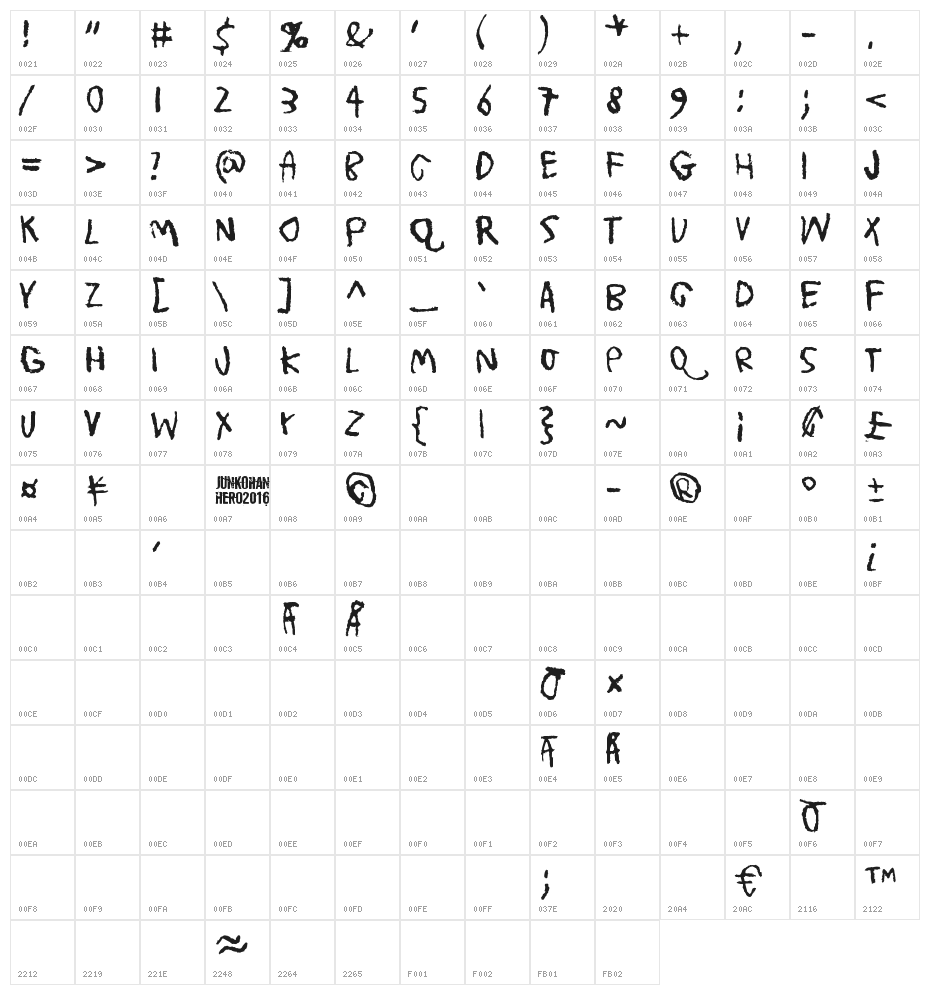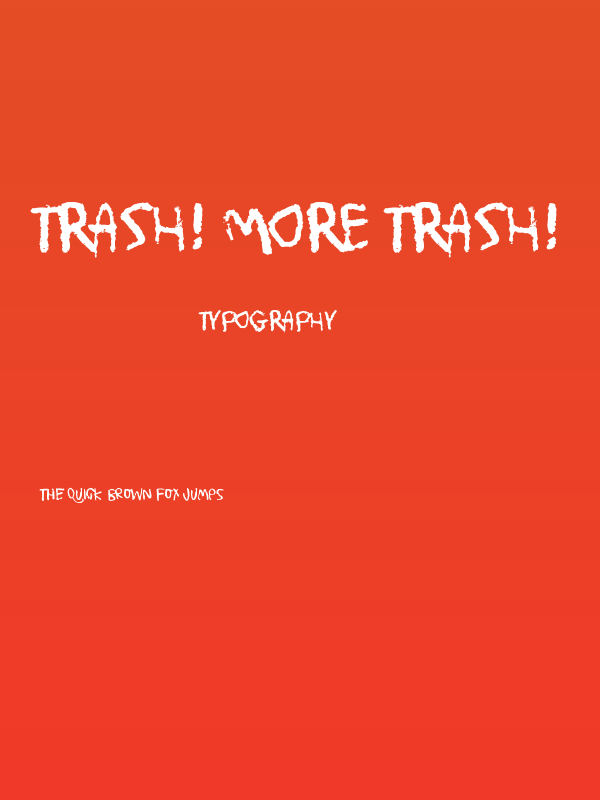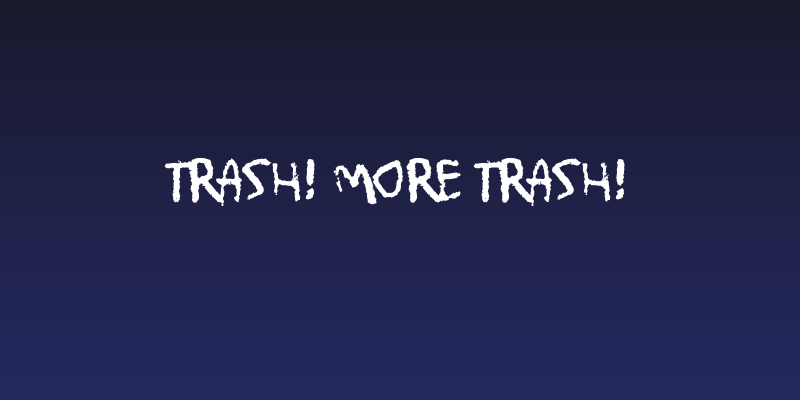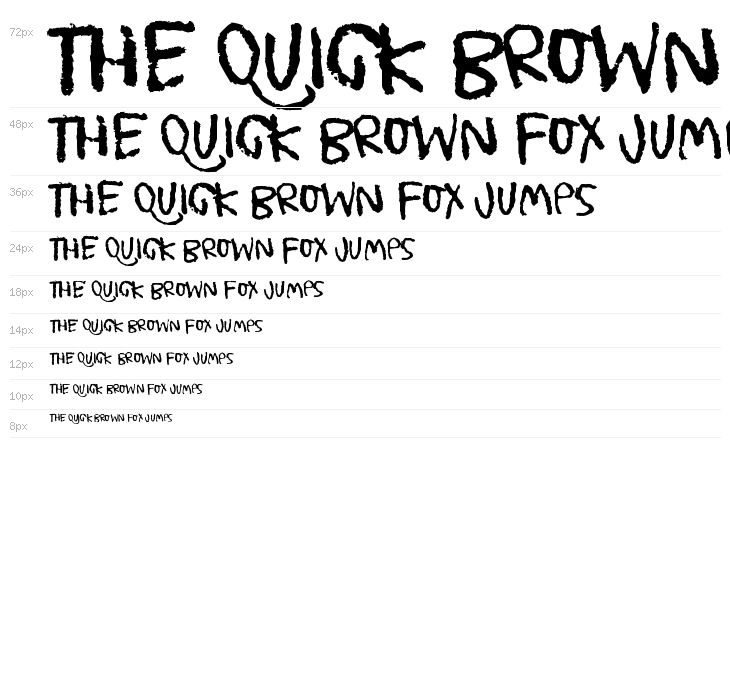
Trash! More trash! Font
Trash! More trash! Description
This font features a bold, hand-drawn style with a rough, textured appearance, reminiscent of graffiti or street art. The characters are irregular and slightly distorted, giving them a dynamic and energetic feel. The uppercase and lowercase letters maintain a consistent style, with jagged edges and uneven strokes. Numbers and special characters follow the same aesthetic, adding to the overall cohesive look. The font's unique and edgy design makes it stand out, perfect for projects that require a bold statement.
| Proposed Projects | Ideal for street art-inspired designs, music album covers, edgy branding, posters, and urban-themed projects. |